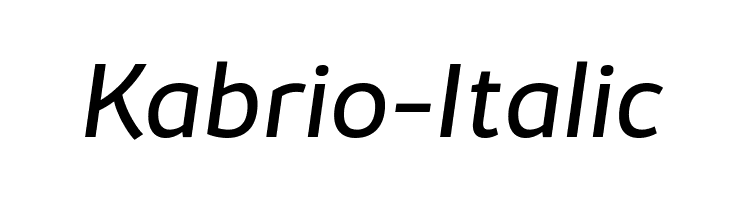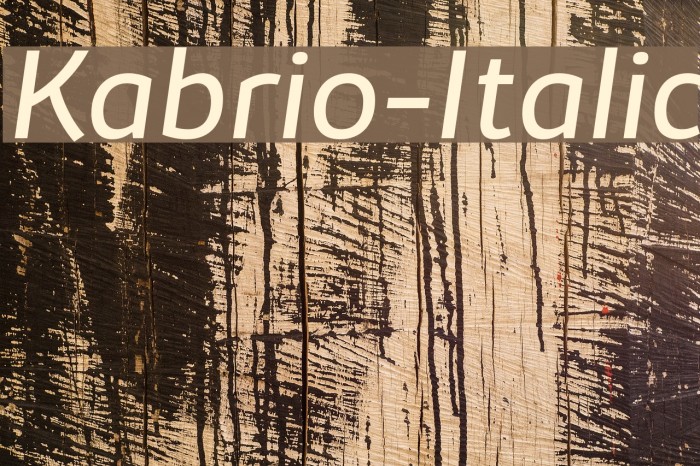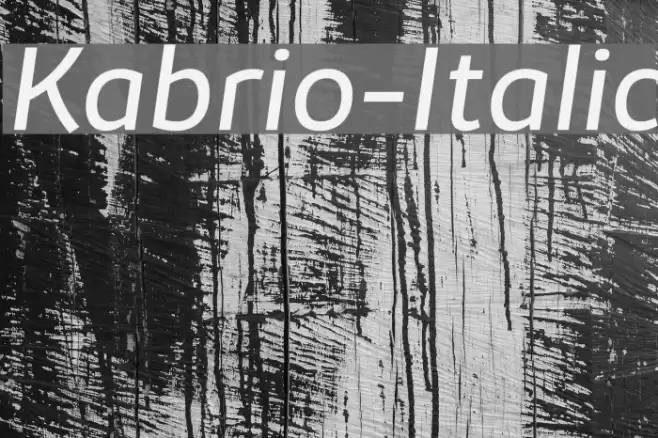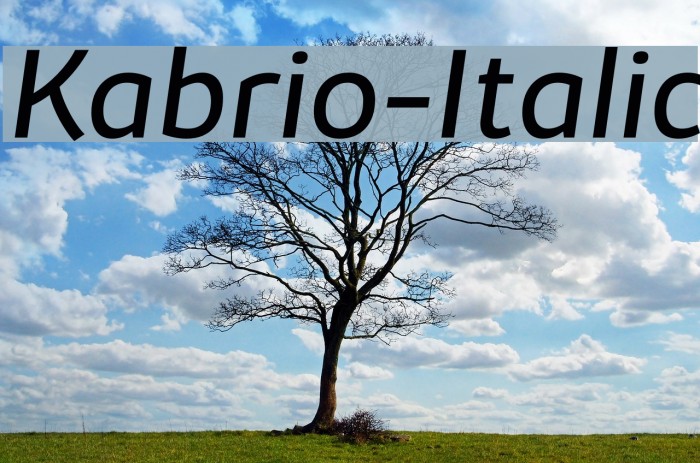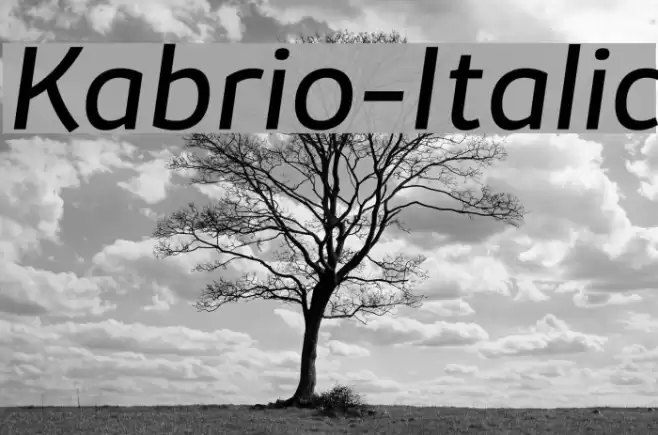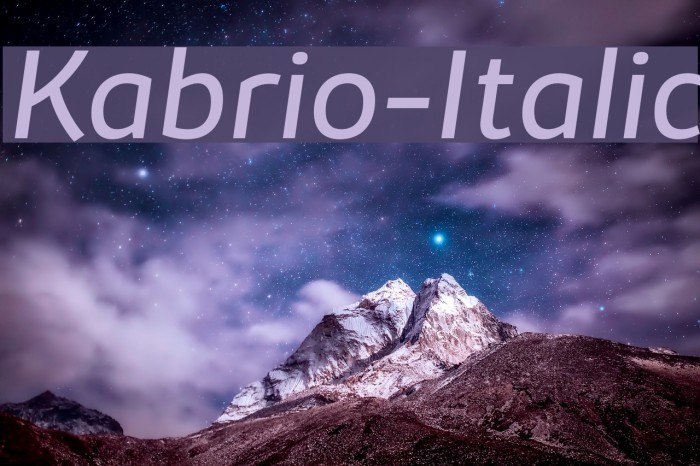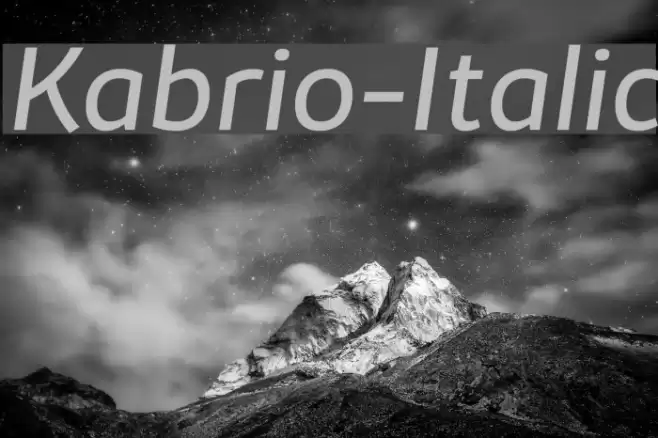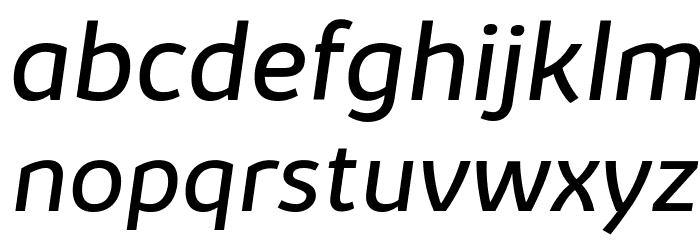
Kabrio-Italic Font
✎ Sans Serif
Kabrio-Italic Description
This font exhibits a sleek and modern design, characterized by its italicized form which adds a dynamic and forward-leaning appearance. The letterforms are clean and sans-serif, providing a contemporary and professional look. The strokes are consistent in weight, contributing to a uniform and balanced aesthetic. The font maintains a normal width, ensuring readability and versatility across various applications. Its character spacing is normal, allowing for clear distinction between letters while maintaining a cohesive flow. The overall style is modern, making it suitable for a wide range of design projects.
| Use Case | Headlines, Body text, Logos |
| Proposed Projects | Ideal for branding, advertising, digital media, and editorial design where a modern and dynamic look is desired. |